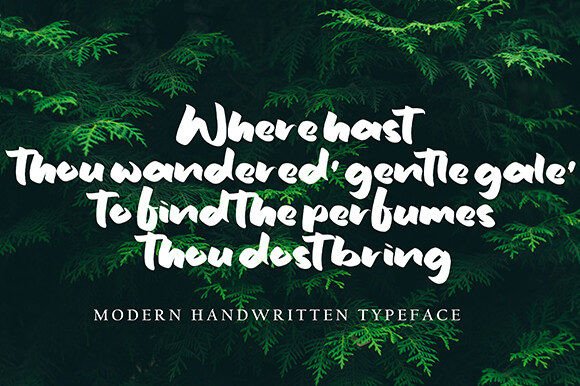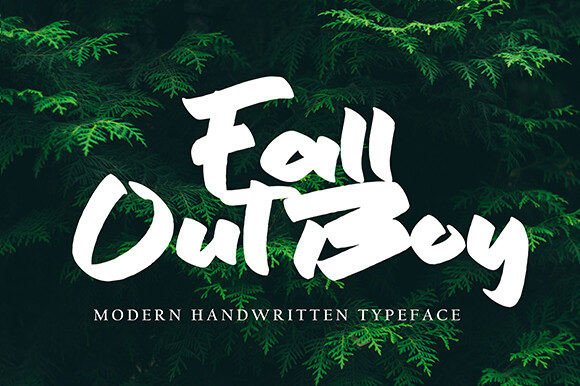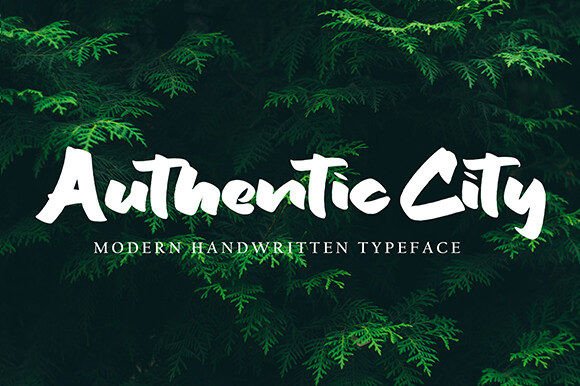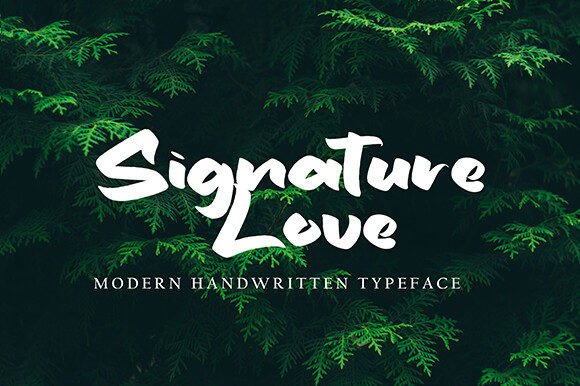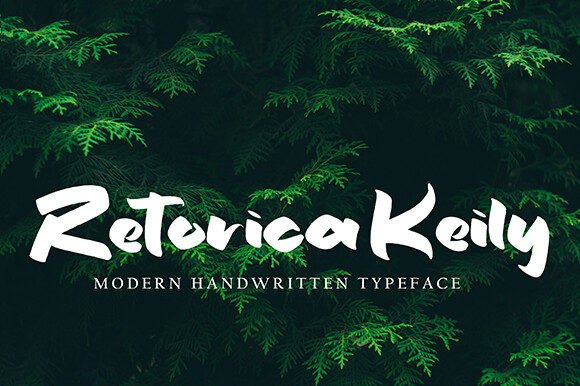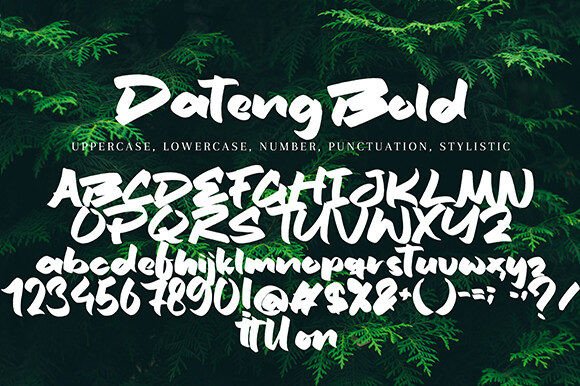
The Perfect Handwritten Touch: A Deep Dive into Dateng Bold Font
I’ll never forget the time I was working on a wedding invitation project, and my client asked for a font that would make the invitation look elegant and sophisticated. I tried several fonts, but none seemed to fit the bill. That’s when I stumbled upon Dateng Bold, a stylish and incredibly elegant script font that exceeded my client’s expectations. In this article, I’ll share my experience with Dateng Bold, its features, and how to make the most of it in your designs.
An Honest Review of Dateng Bold
- ✨ Elegant and sophisticated design that’s perfect for wedding invitations, thank you cards, and greeting cards.
- ✅ Highly legible, even at smaller font sizes.
- 💫 Beautifully crafted to give your designs a handwritten touch.
- 🎨 Versatile and can be used for a wide range of design projects, from logos to business cards.
While Dateng Bold is an excellent font, there are a few things to keep in mind:
- ⚠️ It may not be the best choice for body text, as it’s a script font and can be challenging to read in large blocks.
- 🤔 Some users may find the font a bit too ornate for certain design projects.
The Designer Inspiration Behind Dateng Bold
Dateng Bold was designed with the intention of creating a font that would evoke a sense of elegance and sophistication. The designer drew inspiration from traditional calligraphy and handwriting, with a focus on creating a font that would be both beautiful and legible.
Q: What is Dateng Bold font?
A: Dateng Bold is a stylish and incredibly elegant script font that’s perfect for wedding invitations, thank you cards, quotes, greeting cards, logos, business cards, and every other design that needs a handwritten touch.
Q: Is Dateng Bold suitable for body text?
A: While Dateng Bold is a beautiful font, it’s not the best choice for body text. It’s a script font and can be challenging to read in large blocks.